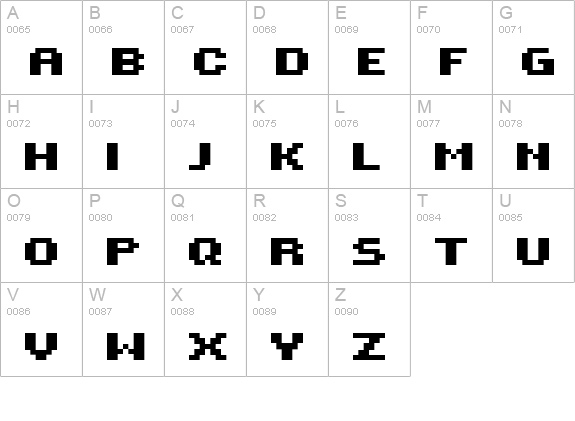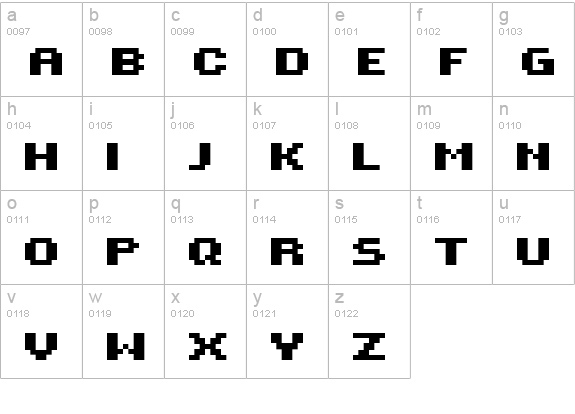
ROTORcap Extended Bold is a strong, high-contrast, extended-width variant in the ROTORcap typeface family \xE2\x80\x94 well suited to headlines, attention-grabbing titles, and strong calls-to-action.
ROTORcap Extended Bold font is a striking and modern typeface that exudes confidence and strength. Its bold design commands attention and makes a bold statement in any project. The extended characters provide a unique and dynamic look, perfect for headlines, titles, and branding materials. With its sharp edges and clean lines, ROTORcap Extended Bold font adds a touch of sophistication to any design. Best of all, ROTORcap Extended Bold font is available for free download at FontsMarket.com. This means you can easily access this premium font without any cost, making it a valuable addition to your font collection. Don't miss out on the opportunity to enhance your designs with the bold and impactful ROTORcap Extended Bold font.